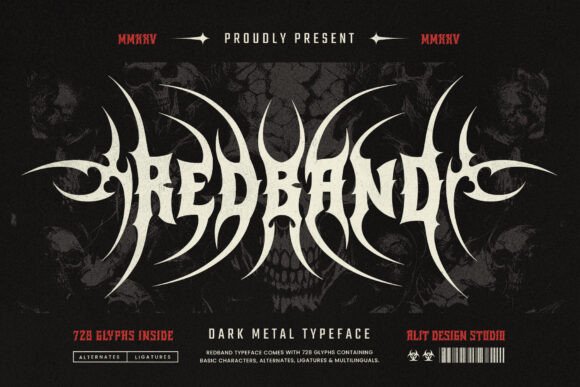
Red Band Typeface – Unleash the Fury of Metal Typography
Step into the world of raw power and untamed aggression with Red Band Typeface, a bold and ferocious typeface designed for those who refuse to go unnoticed. Inspired by the chaotic energy of heavy metal, gothic art, and tribal aesthetics, this font brings a dark and commanding presence to any design.
The Inspiration Behind Red Band Typeface
Red Band Typeface is not just a font – it’s an experience. Born from the intense world of heavy metal music, gothic art, and tribal designs, it captures the essence of rebellion and strength. The creators of Red Band Typeface aimed to bring the untamed energy of these genres into the world of typography, making it perfect for projects that demand attention and exude power.
A sneak peek into the ferocious world of Red Band Typeface
Key Features of Red Band Typeface
- Thorn-Covered Letterforms: Each letter in Red Band Typeface is adorned with thorns, giving it a fierce and battle-hardened look.
- Razor-Sharp Tribal Swashes: The font includes tribal swashes that add an extra layer of aggression and style to your designs.
- Heavy Metal Inspiration: The chaotic energy of heavy metal music is palpable in every curve and edge of this typeface.
- Gothic and Tribal Influences: The gothic and tribal elements ensure that the font has a dark and mysterious vibe.
Perfect for High-Impact Designs
Red Band Typeface is built for creators who demand impact. Whether you’re designing a logo for a metal band, an album cover, a streetwear brand, a tattoo design, or even a horror movie poster, this typeface ensures that your work stands out.
Use Cases for Red Band Typeface
- Metal Band Logos: Create logos that reflect the intense energy of heavy metal music.
- Album Covers: Design album covers that grab attention and reflect the music’s genre.
- Streetwear Branding: Add an edgy touch to your streetwear brand with a font that screams rebellion.
- Tattoo Designs: Perfect for tattoo artists looking to create unique and bold designs.
- Extreme Sports: Use Red Band Typeface to brand extreme sports equipment or marketing materials.
- Gaming: Create game titles or in-game text that stands out with a bold and aggressive font.
- Horror Movie Posters: Add a touch of horror and suspense to your movie posters.
How to Use Red Band Typeface Effectively
To get the most out of Red Band Typeface, consider the following tips:
- Pair with Neutral Backgrounds: Let the boldness of the font shine by pairing it with neutral or dark backgrounds.
- Experiment with Colors: While the font is inherently red, experimenting with other bold colors can enhance its impact.
- Mix with Other Fonts: Combine Red Band Typeface with simpler fonts for a striking contrast.
Red Band Typeface is more than just a font – it’s a statement. It’s for those who dare to be different, who crave attention, and who embody the spirit of rebellion. With its raw power and aggressive style, it’s the perfect choice for any project that demands to be noticed.